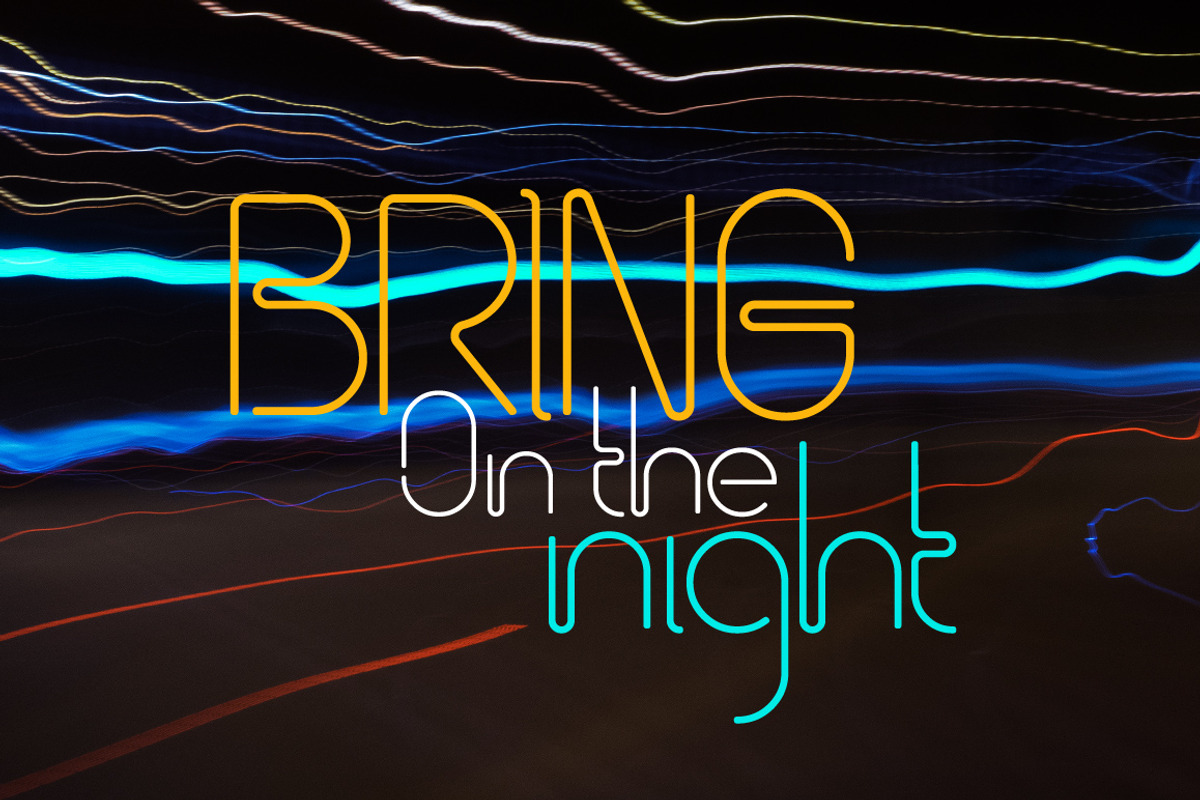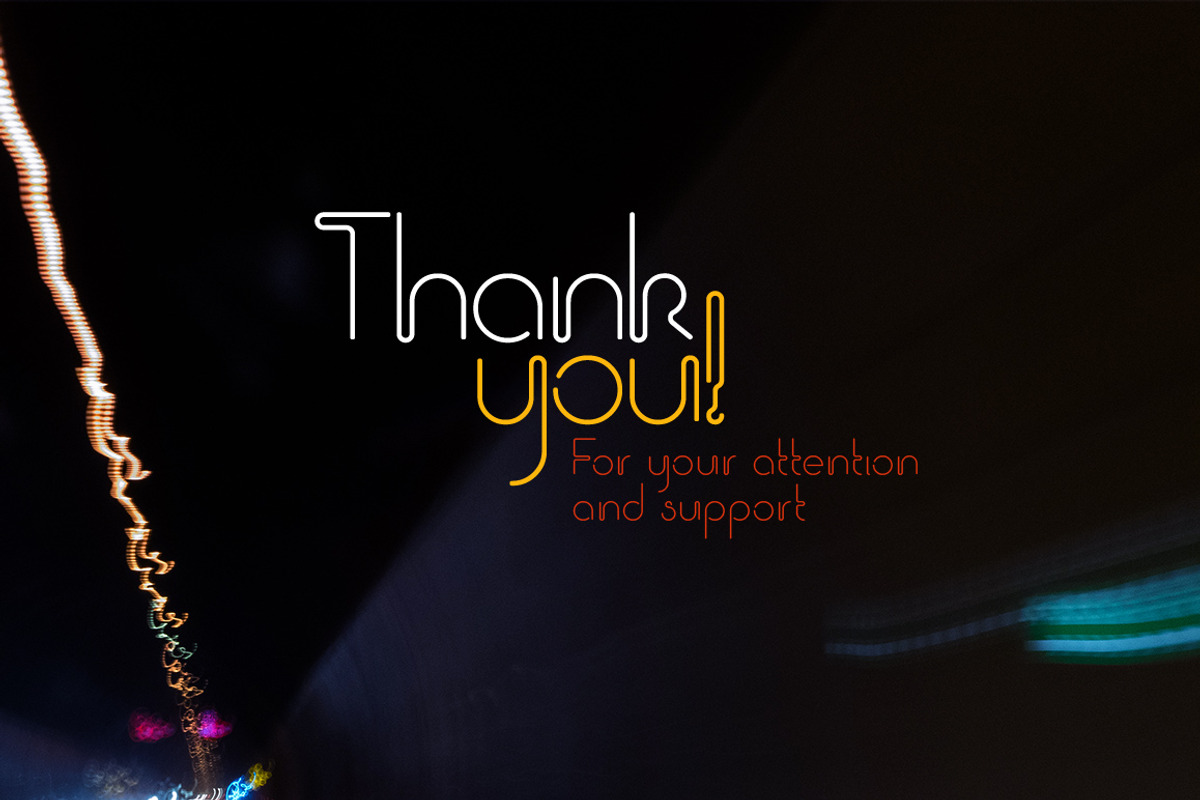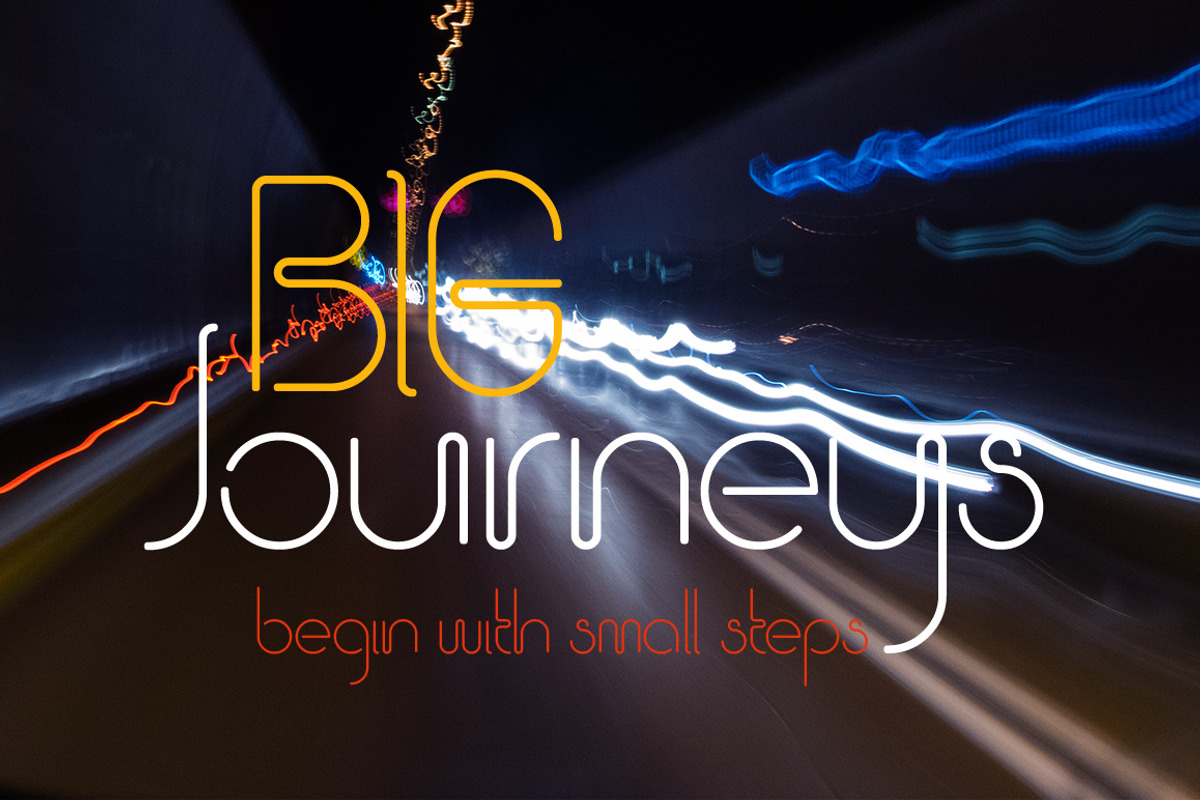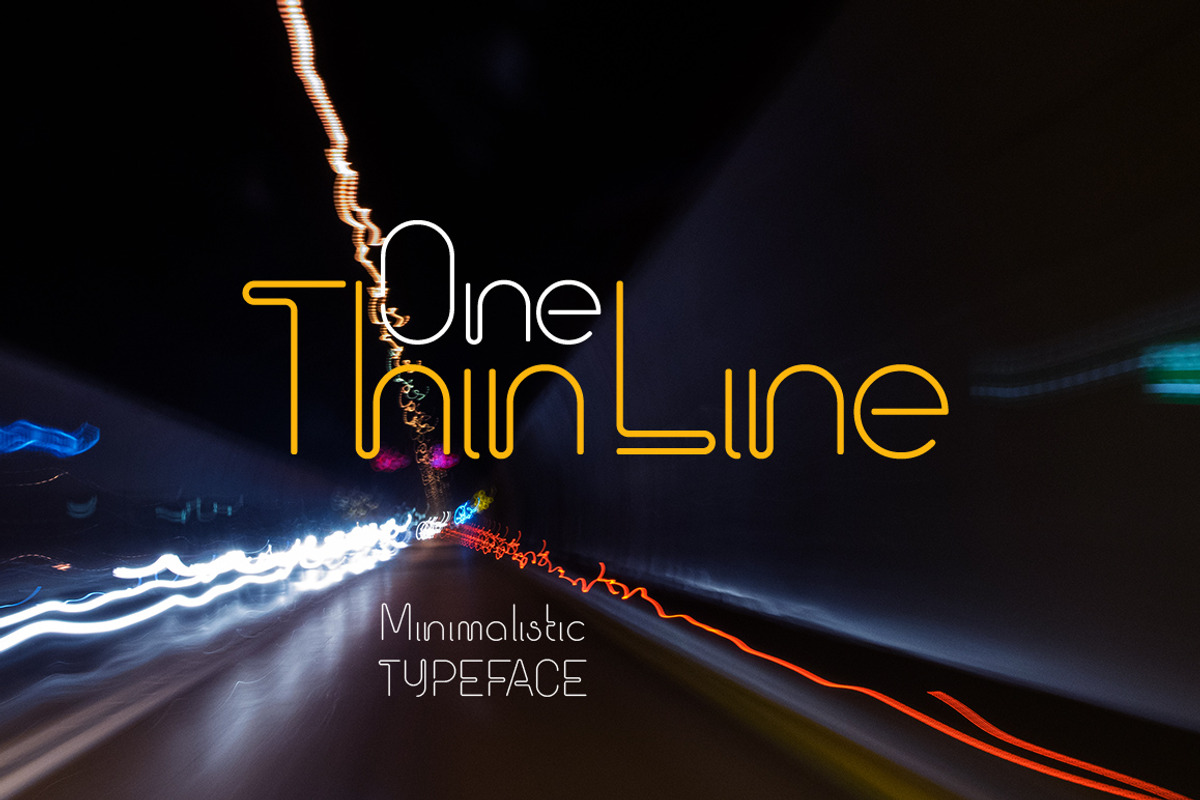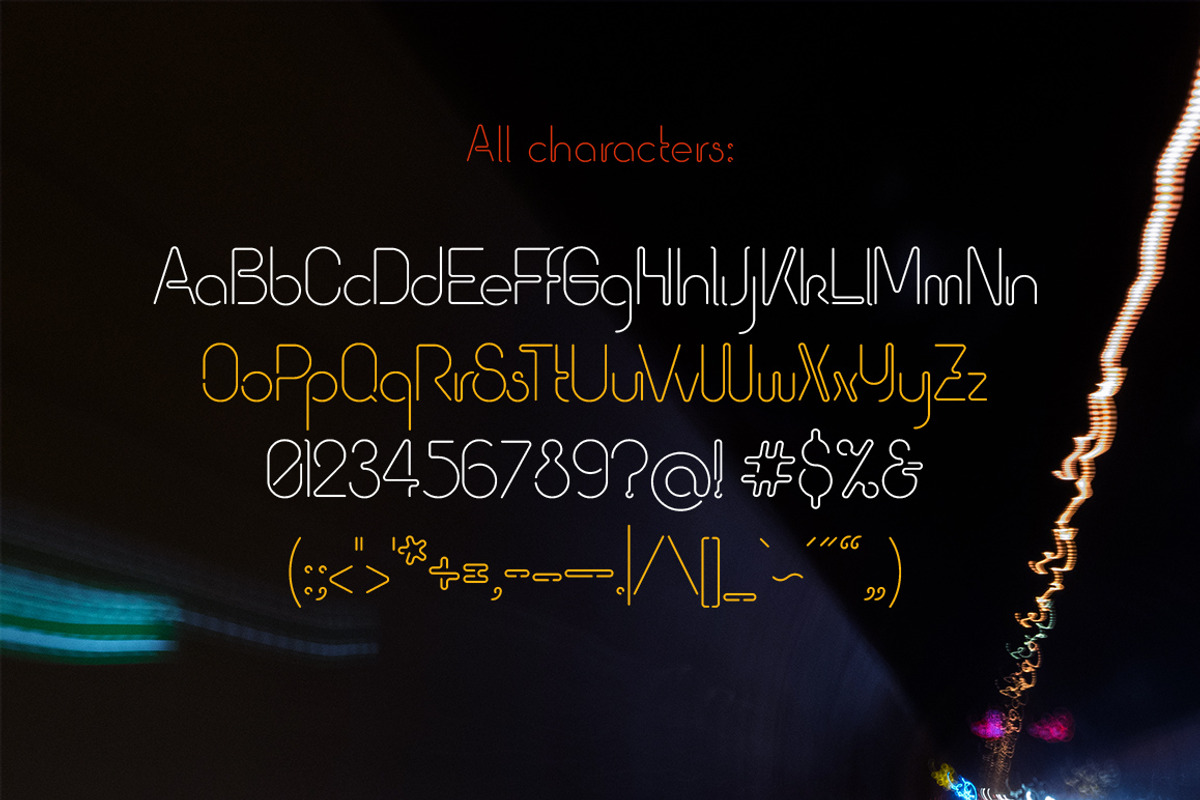
One Thin Line font
One Thin Line font by Gleb Guralnyk is a font selected for branding, posters, packaging, typography.
- Because almost all letters and characters are made of one line :) As a bonus you will get four 3000x2000 px background photos with night lig
Why One Thin Line font is worth a look
One Thin Line font by Gleb Guralnyk fits naturally into Branding, posters, packaging, typography.